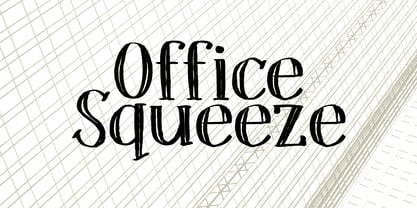
Office Squeeze
by Hanoded
About Office Squeeze Font Family
Office Squeeze was made with a Japanese brush pen. I kind of like the fact that, despite its roughness, Office Squeeze still maintains a very neat appearance. Office Squeeze can be used for just about anything, but product packaging, logos and posters spring to mind. Comes with a generous square footage of diacritics.
About Hanoded
Hanoded is a type foundry based in The Netherlands and run by David Kerkhoff. After finishing his journalism studies, David traveled extensively and ended up in Israel where he stayed for some years. David had a lot of jobs – zookeeper, goldsmith, artist and cook (to name a few), but settled on working as a tour guide and photographer. David specializes in hand printed typefaces and uses brushes, pens, ink and paint to create his – sometimes scary looking – fonts. He lives in a wee hamlet near the Rhine river, with his wife, three kids, a handful of extremely spoiled chickens and two guinea pigs called Cookie and Chippie.The Premium foundry page can be viewed https://www.myfonts.com/a/font/premium-font-collections/hanoded